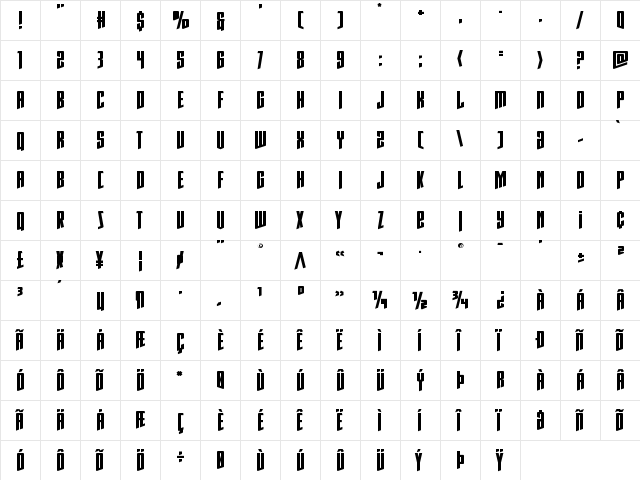
Rhinoclops Expanded Regular Font Preview
Rhinoclops Expanded Regular
Rhinoclops Expanded Regular Font Details
Design Context for Rhinoclops Expanded Typeface
Rhinoclops Expanded is a composed and adaptable typeface that performs quietly and consistently across a wide range of design contexts.